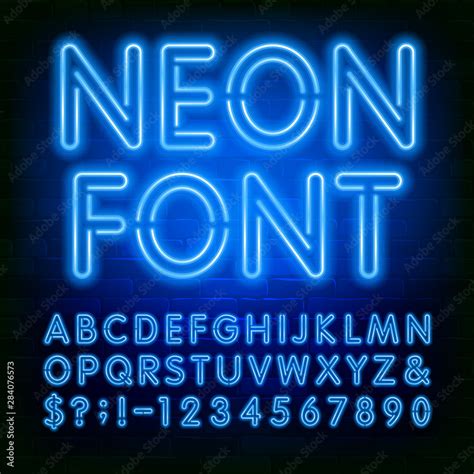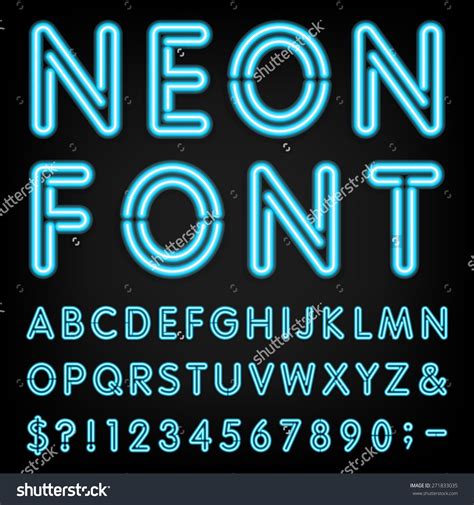
Alphabet Neon Fonts: Brighten Your Designs with Glow
Readers, have you ever wanted to add a touch of electric excitement and visual vibrancy to your designs? Imagine your text shimmering and pulsating with an eye-catching glow, instantly attracting attention and captivating your audience. That's the power of alphabet neon fonts! They're not just fonts; they're a design element that transforms ordinary text into a dazzling spectacle. I have dedicated my time to researching and analyzing alphabet neon fonts, and I'm excited to share my insights with you.
Alphabet neon fonts, with their luminous glow, are a versatile tool for crafting unique and memorable designs. They can be used for various purposes, from branding and logos to website headers and social media graphics. The possibilities are endless!
What Are Alphabet Neon Fonts?
Alphabet neon fonts are digital fonts that mimic the appearance of neon signs. They capture the distinctive glow and captivating effect of real neon lights, adding a dynamic and visually appealing dimension to your designs. These fonts are often used to create a retro, futuristic, or playful aesthetic, depending on the specific style and design choices.
The History of Neon Signs
The history of neon signs goes back to the early 20th century. The first neon sign was created in 1910 by a French engineer named Georges Claude. Claude's invention was a revolutionary breakthrough, as it allowed for the creation of bright, luminous signs that could be seen from afar. Neon signs quickly gained popularity in the United States, particularly in the 1920s and 1930s, becoming a defining feature of urban landscapes and a symbol of American culture.
Types of Neon Fonts
Although neon signs initially used glass tubes filled with neon gas, modern neon fonts are primarily digital creations. They come in various styles, ranging from classic retro designs to modern, minimalist fonts, all designed to capture the unique aesthetic of neon lighting. Some popular types of neon fonts include:
- Classic Neon Fonts: Often featuring a bold, outlined style reminiscent of traditional neon signs.
- Modern Neon Fonts: Designed with a clean, minimalist aesthetic, often using a subtle glow effect.
- Digital Neon Fonts: Combining the bold appearance of neon signs with a digital, pixelated aesthetic.
How to Use Alphabet Neon Fonts in Your Designs
The beauty of alphabet neon fonts lies in their versatility. They can be used in various design contexts, from branding and logos to website headers and social media graphics. Here's a breakdown of how to effectively use alphabet neon fonts in your designs:
Branding and Logos
Neon fonts can be used to create eye-catching logos that stand out from the competition. The luminous glow of these fonts adds a sense of energy, excitement, and playfulness, making them ideal for brands targeting a younger audience or those seeking a modern, unique look.
Website Headers
Using neon fonts for website headers can make your website more visually appealing and memorable. The bold, attention-grabbing style of these fonts can effectively draw attention to your website's name and brand, making a strong first impression on visitors.
Social Media Graphics
Neon fonts are perfect for creating engaging and shareable social media graphics. The vibrant glow of these fonts makes them ideal for social media posts, banners, and other graphics that need to stand out in a crowded online environment.
Print Design
While traditionally associated with digital design, neon fonts can also be used effectively in print design. The bold, distinctive style of these fonts can add a modern touch to posters, flyers, and other printed materials.
Tips for Using Alphabet Neon Fonts Effectively
While alphabet neon fonts offer a unique and appealing aesthetic, using them effectively requires some consideration. Keep these tips in mind to ensure your designs look polished and professional:
Choose the Right Style for Your Project
Neon fonts come in various styles, from classic retro designs to modern, minimalist fonts. Choose a style that matches the tone and aesthetic of your design project. Consider the target audience and brand message when selecting a neon font.
Use Neon Fonts Sparingly
While neon fonts can add a pop of excitement to your designs, using them excessively can make your designs look cluttered and overwhelming. Use neon fonts strategically for headings, titles, or other key elements that need to stand out.
Pair Neon Fonts with Complementary Styles
Mixing and matching fonts can add depth and visual interest to your designs. Pair neon fonts with complementary styles, such as sans-serif fonts or script fonts, to create a balanced and cohesive look.
Use Color Effectively
Color plays a crucial role in creating effective neon font designs. Choose colors that complement the chosen neon font and match the design's overall aesthetic. Experiment with different color combinations to find the most striking and visually appealing look.
Exploring the Creative Potential of Alphabet Neon Fonts
Alphabet neon fonts offer endless creative possibilities for designers. They can be used to create eye-catching visuals, add a touch of retro charm, or inject a dose of energy and excitement into your designs.
Creating Retro Aesthetics
Neon fonts are often used to create a retro aesthetic, reminiscent of the 1980s and 1990s. By using classic neon font styles and pairing them with vibrant colors, you can evoke a sense of nostalgia and fun in your designs.
Achieving a Futuristic Look
Neon fonts can also be used to create a futuristic look, particularly when combined with geometric shapes, metallic accents, and other elements associated with science fiction. Their vibrant glow and bold lines can transport your designs to a world of technology and innovation.
Adding a Touch of Playfulness
Neon fonts can also be used to add a touch of playfulness to your designs. Their bold, attention-grabbing style can make designs feel more engaging and appealing to a younger audience.
Alphabet Neon Fonts: A Versatile Design Tool
Alphabet neon fonts are a truly versatile design tool that can be used for countless purposes. They offer a unique aesthetic that can add a touch of excitement, nostalgia, or futuristic charm to your designs. From branding and logos to websites and social media graphics, neon fonts can help you create a memorable and impactful visual experience.
FAQ Section
What are some of the best resources for finding alphabet neon fonts?
Some of the best resources for finding alphabet neon fonts include Google Fonts, Font Squirrel, Dafont, Creative Market, MyFonts, and Fonts In Use. These resources offer a wide variety of free and premium fonts, including neon fonts with unique styles and effects.
Can I use neon fonts for commercial purposes?
Whether you can use a neon font for commercial purposes depends on the license agreement associated with the font. Some fonts are free for both personal and commercial use, while others require a paid license for commercial use. Always check the font license agreement before using it for any commercial purposes.
How can I ensure that my designs using neon fonts look professional and polished?
To ensure your designs using neon fonts look professional and polished, choose the right font style for your project, use neon fonts sparingly, pair them with complementary styles, and use color effectively. By following these tips, you can create designs that are visually appealing and impactful.